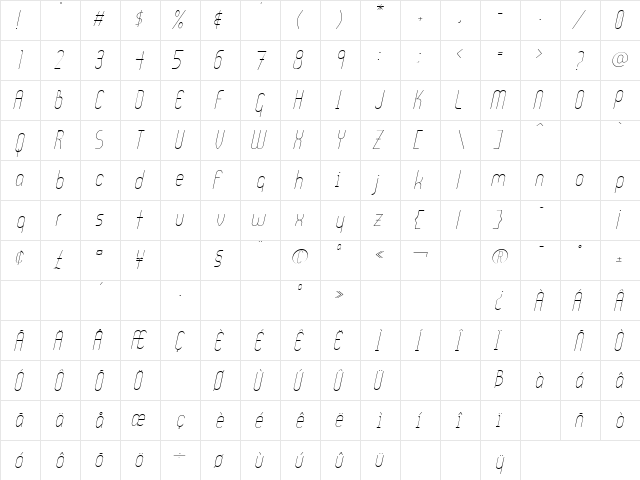
Ultura LightItalic
Design Context for Ultura Typeface
Ultura is a composed and adaptable typeface that performs quietly and consistently across a wide range of design contexts. The dynamic lean of this cut emphasises speed and emphasis in any layout. Its slender proportions lend an understated elegance to any composition.
Pro Tip: Use Ultura for emphasis, pull quotes, and subheadings where its slanted energy can add rhythm to the layout.